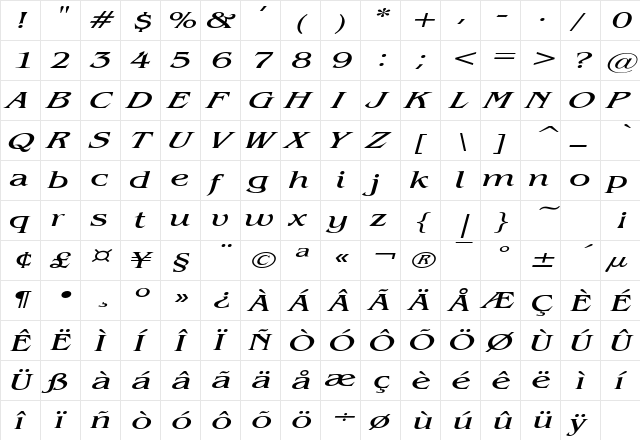
GazetteExtended Italic
Design Context for GazetteExtended Typeface
GazetteExtended offers clean, dependable letterforms without strong stylistic allegiance, making it a practical choice for designers who need flexibility. The slanted form adds forward momentum and visual energy.
Pro Tip: Try GazetteExtended for annotation and caption copy alongside an upright companion — the contrast in angle creates a dynamic but ordered typographic system.